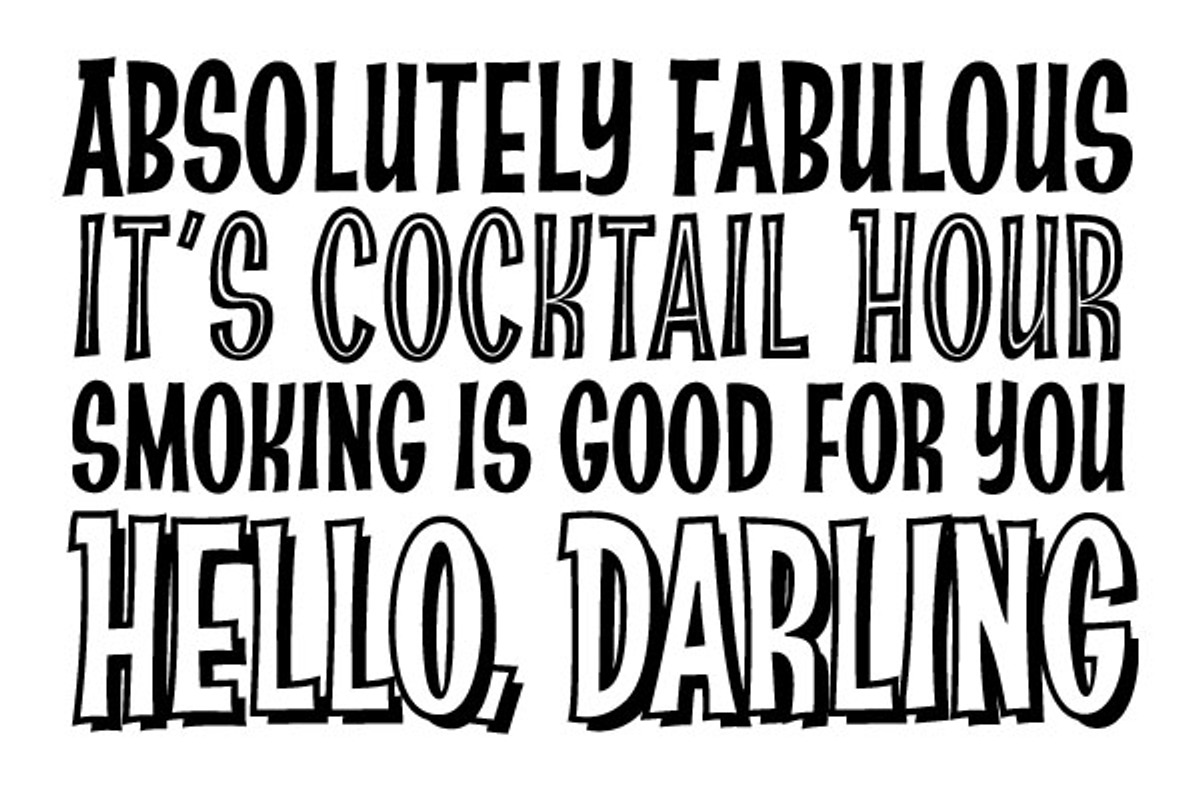
Absolutely Fabulous - beatnik font
Absolutely Fabulous - beatnik font by Comicraft Fonts is a font selected for branding, posters, packaging, typography.
Why Absolutely Fabulous - beatnik font is worth a look
Absolutely Fabulous - beatnik font by Comicraft Fonts fits naturally into Branding, posters, packaging, typography.